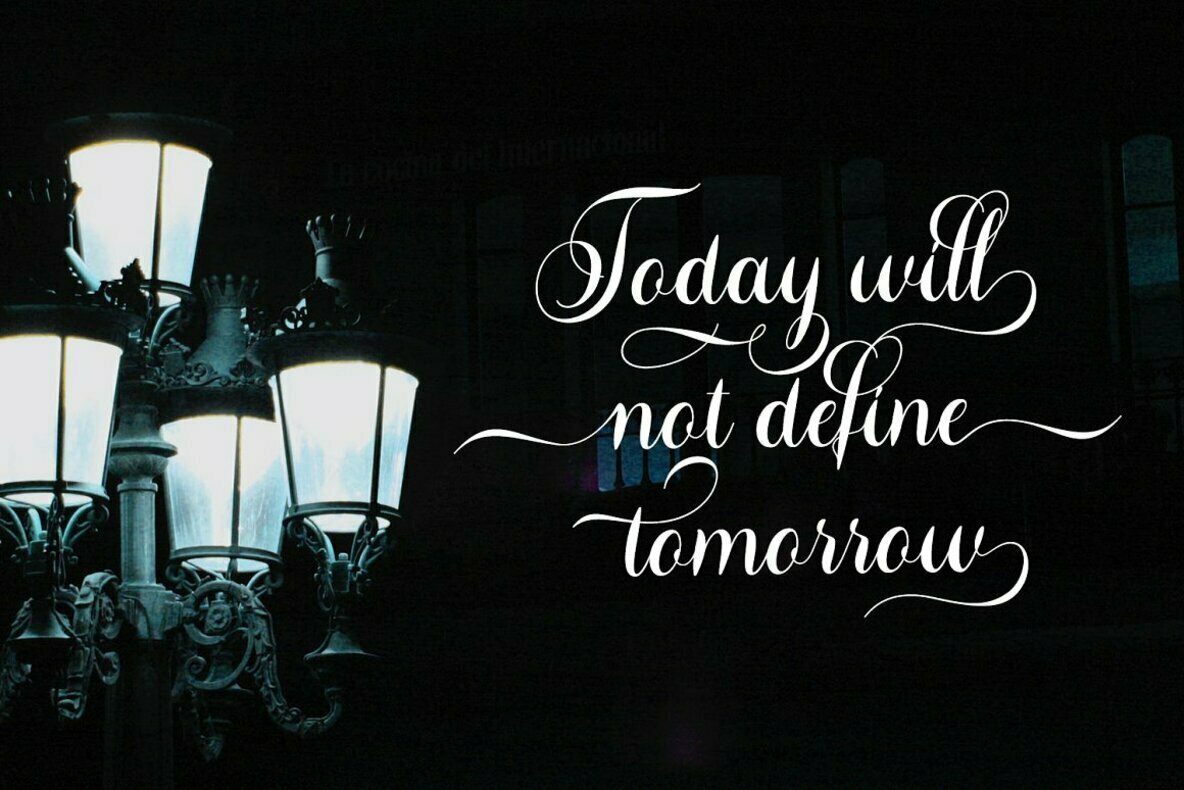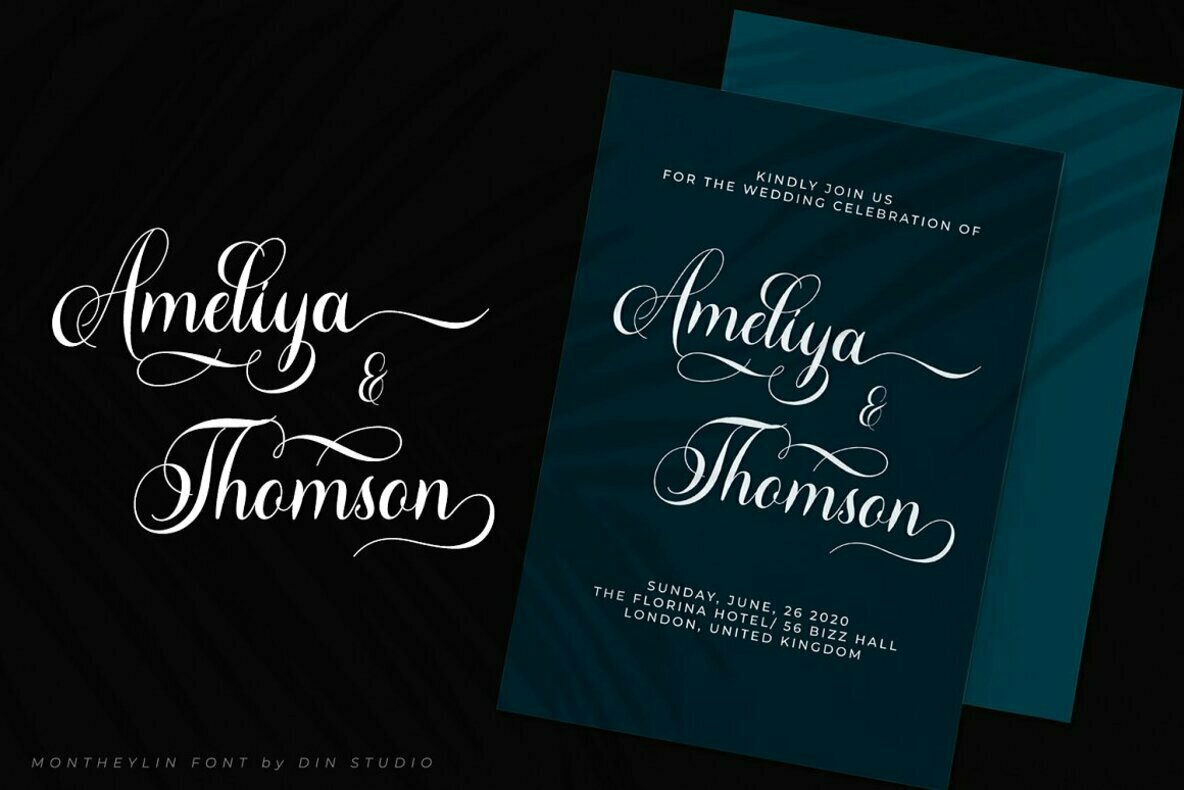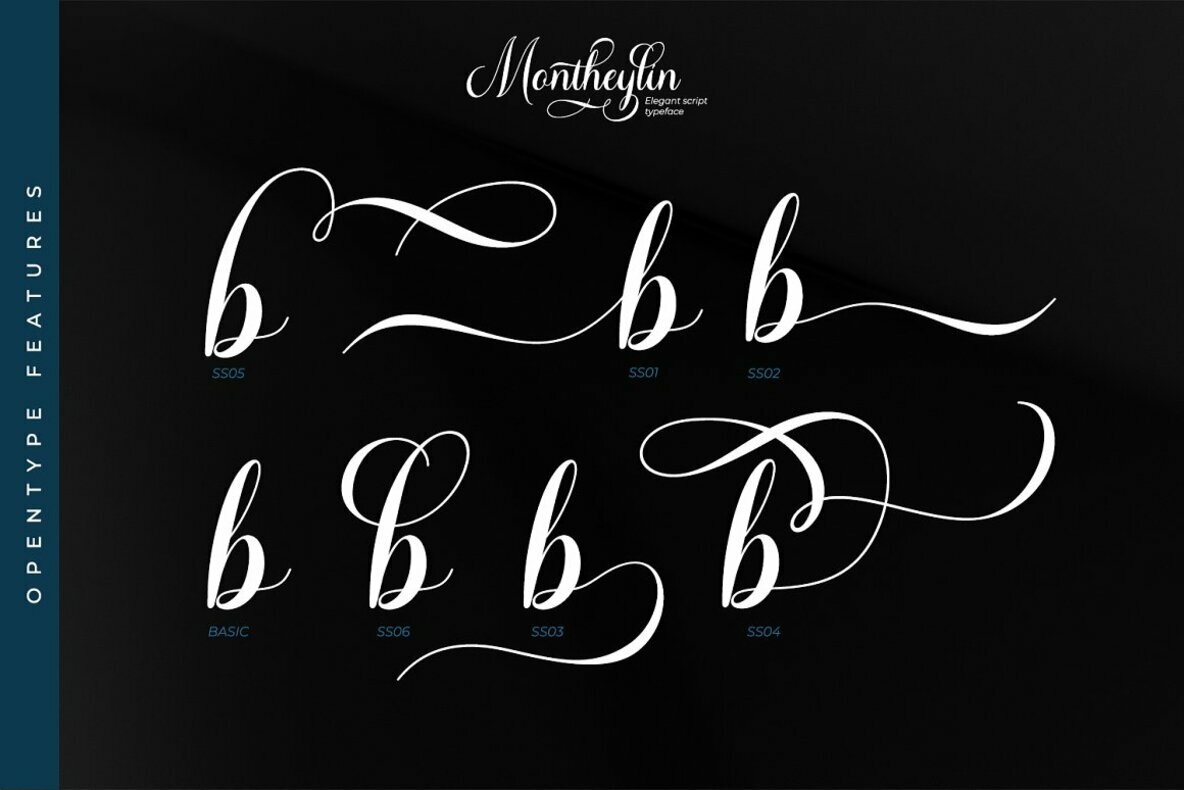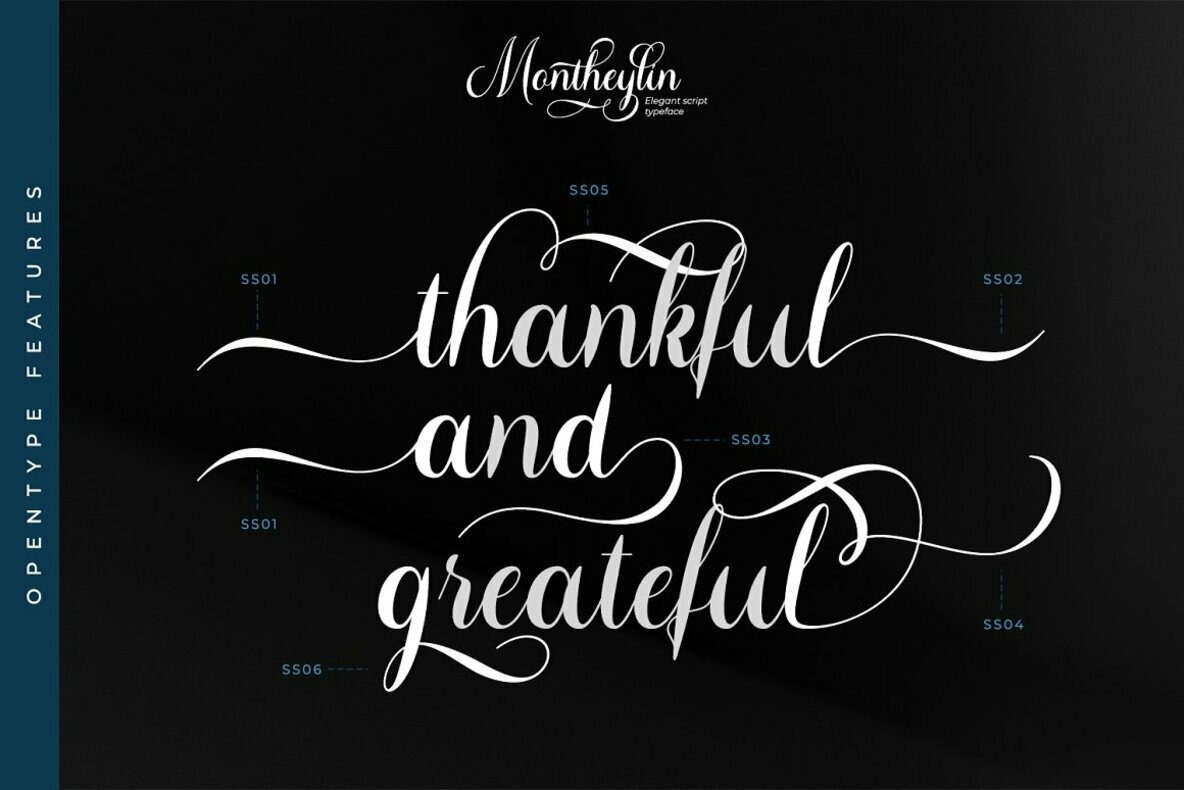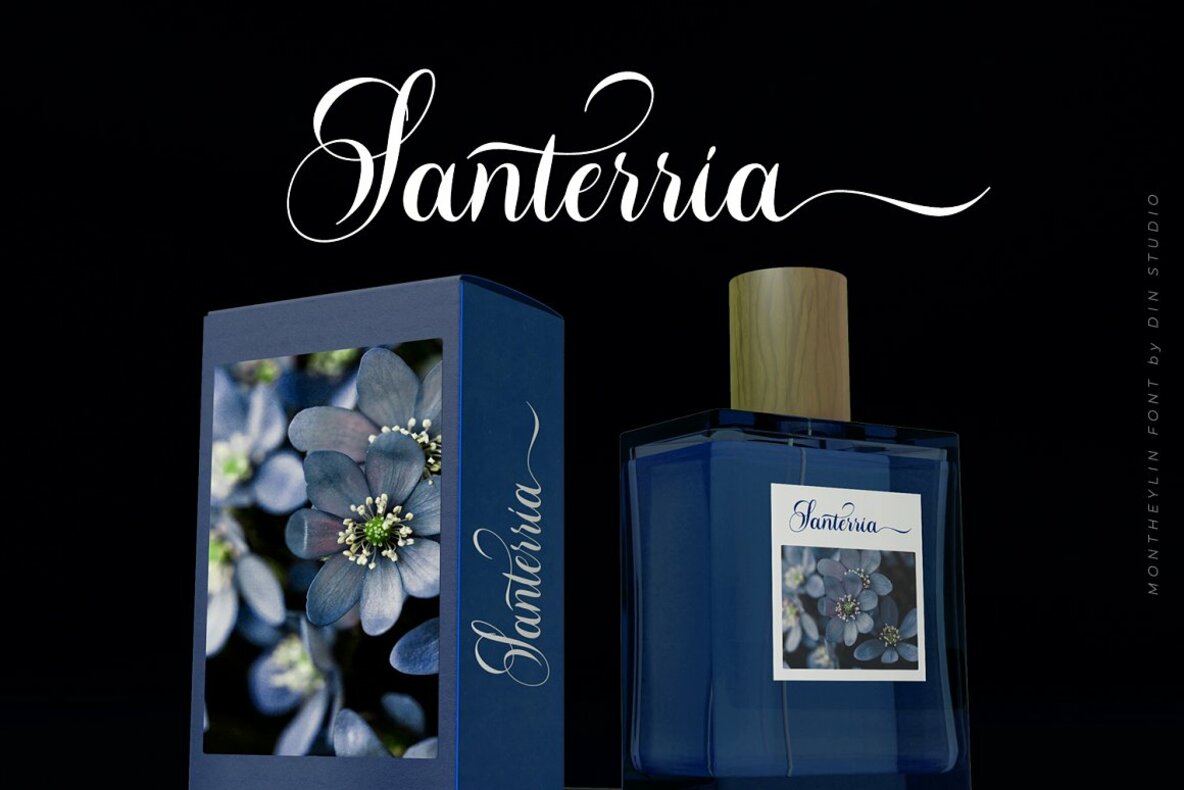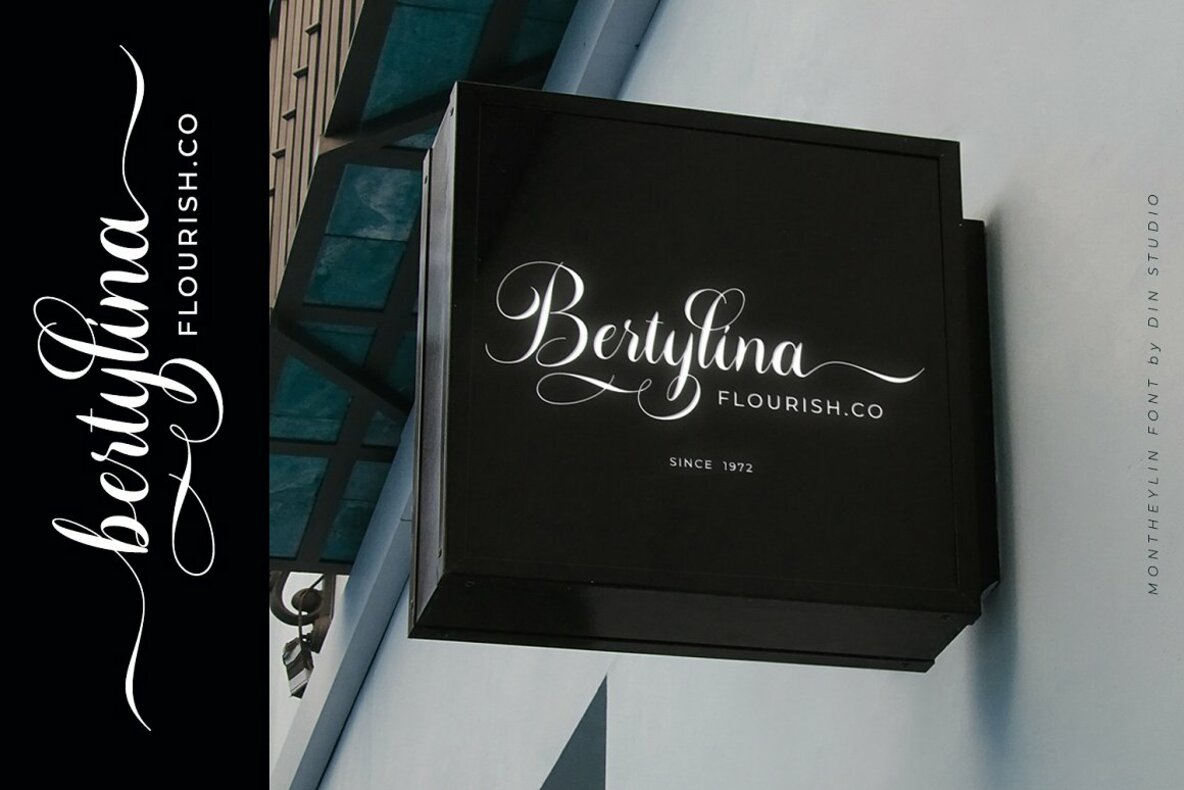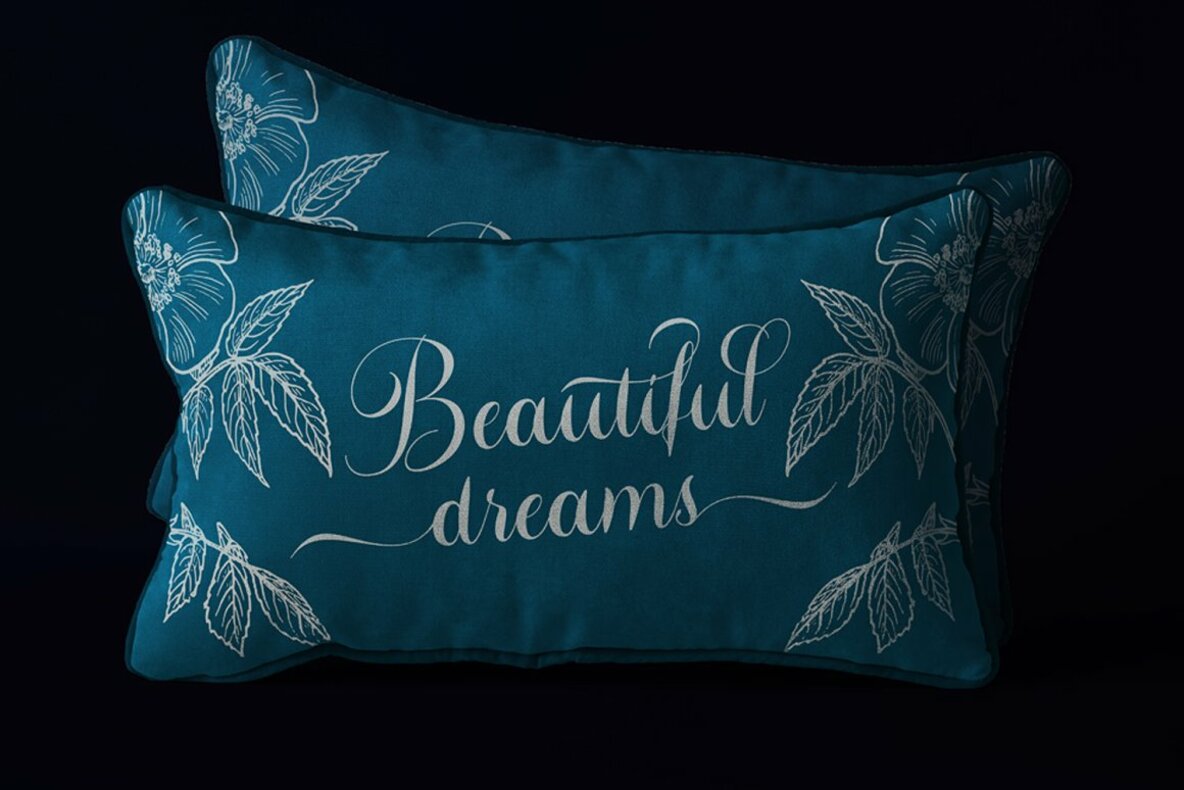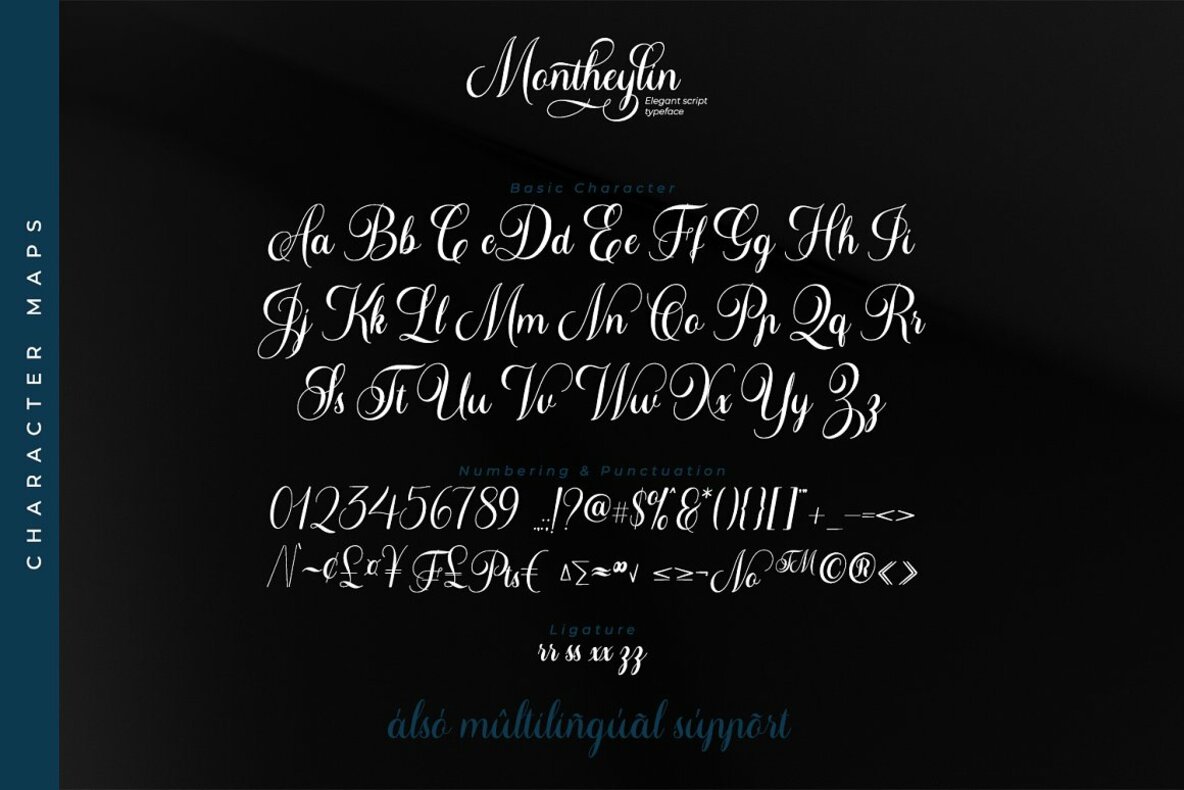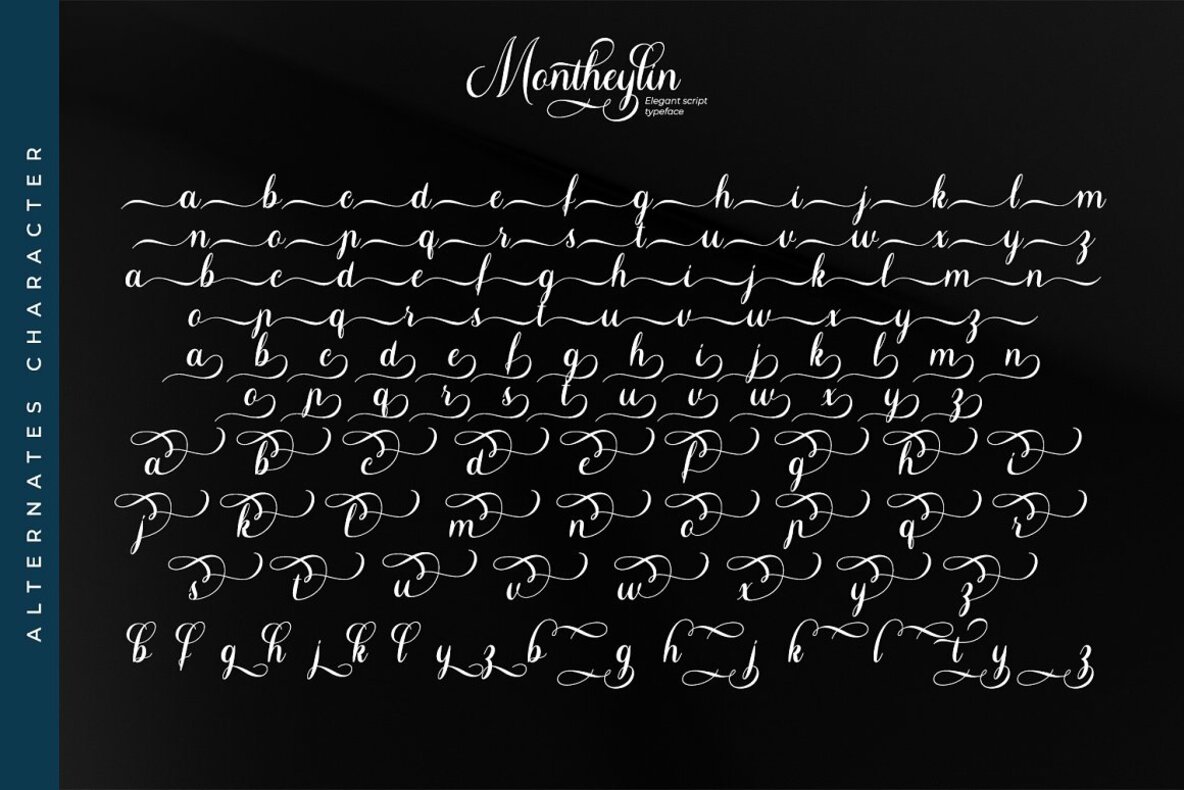
Montheylin Font
Montheylin
Montheylin captures the essence of sophisticated calligraphy with its natural, handwritten style. This modern typeface is specifically crafted for professional branding projects. Its versatility lends itself beautifully to logos, wedding themes, and inspirational quotes, offering both elegance and functionality.Montheylin: Elegant Calligraphy Typeface